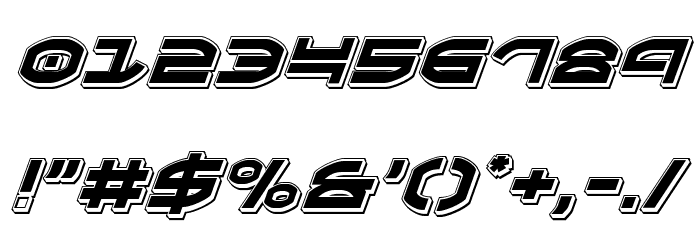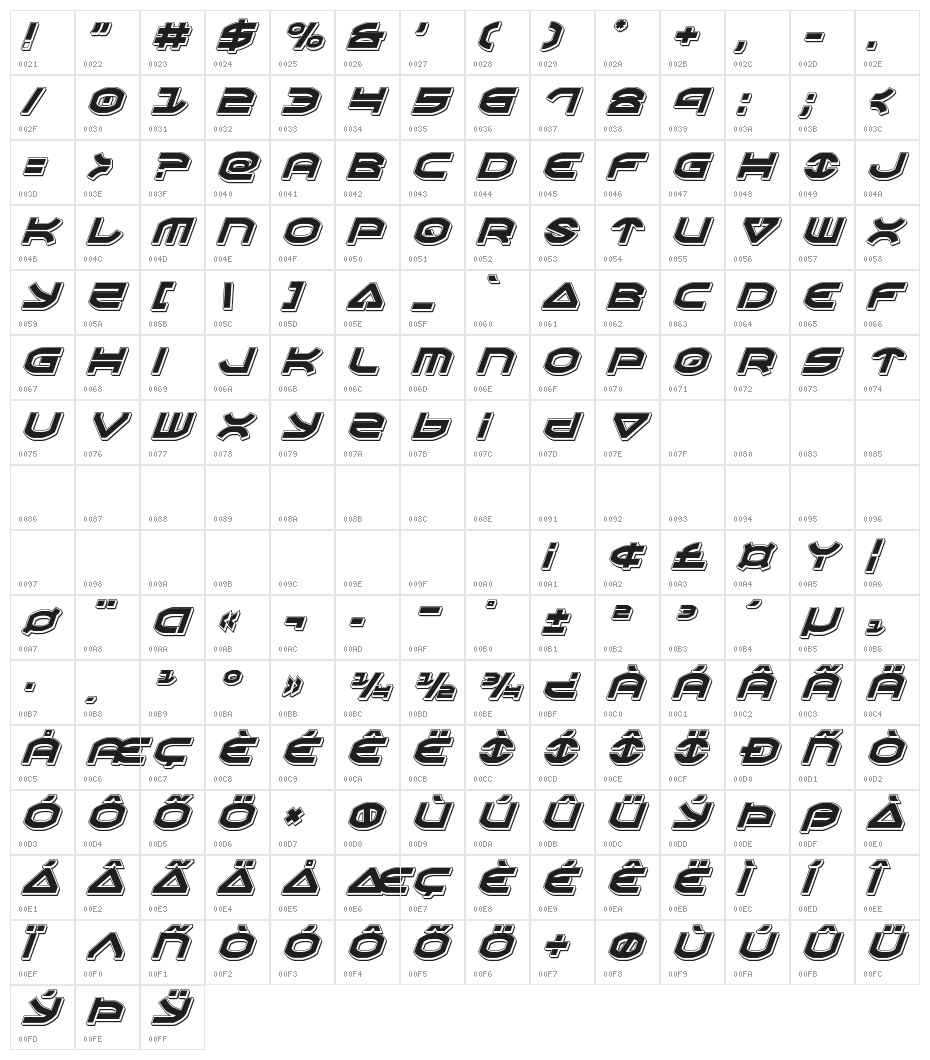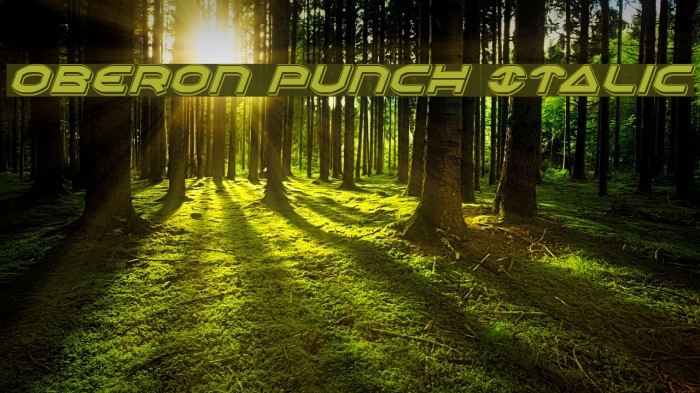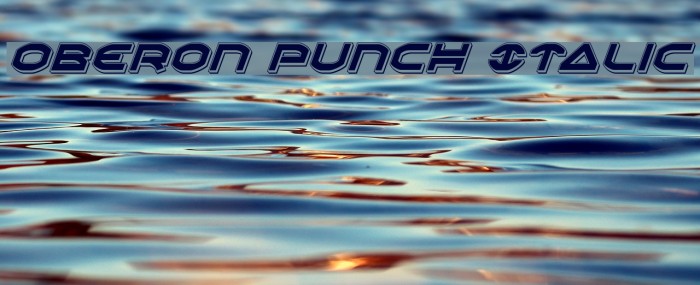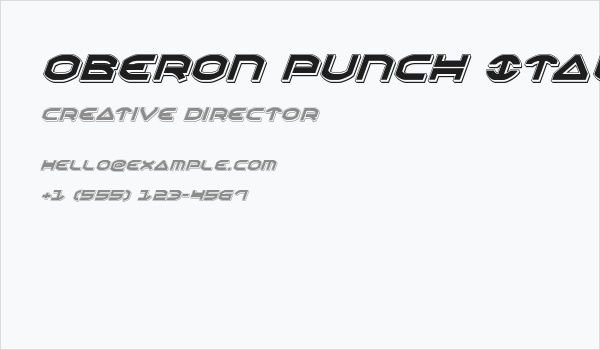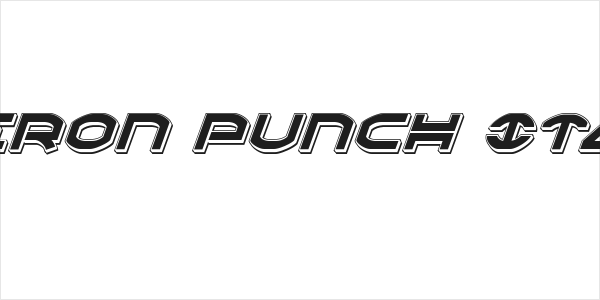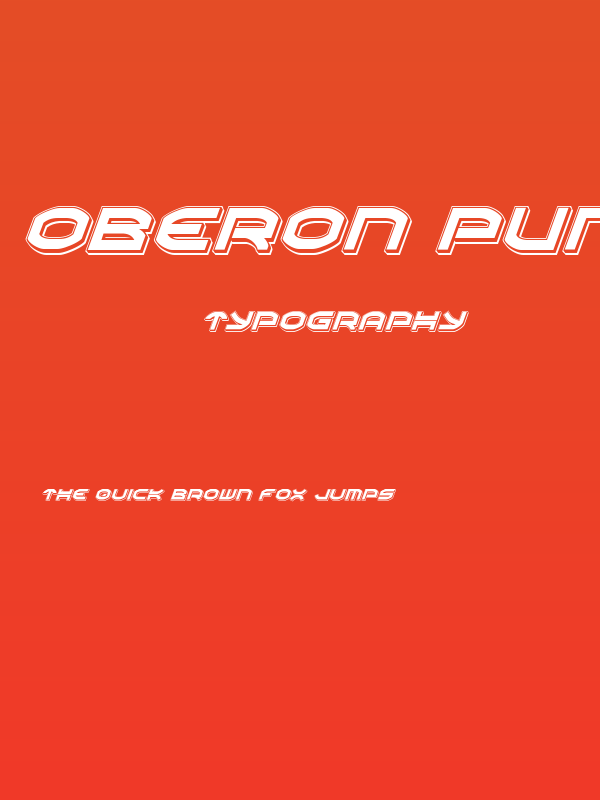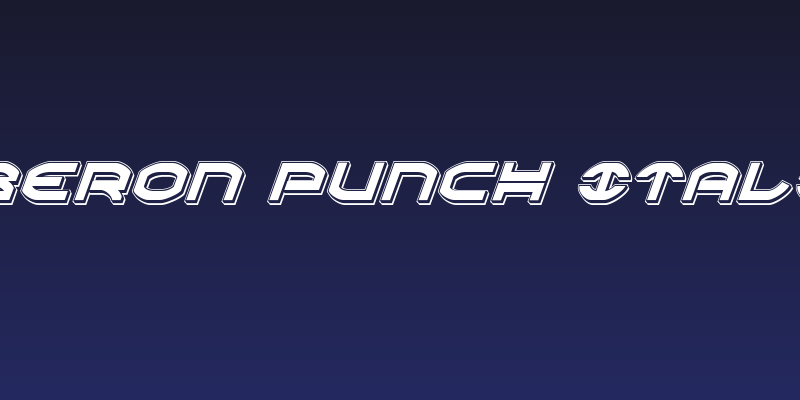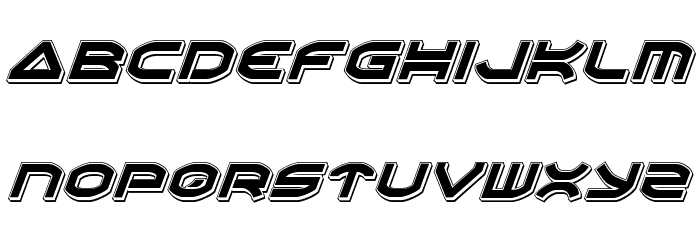
Oberon Punch Italic Font
Oberon Punch Italic Description
This font features a bold and dynamic style with a futuristic flair. The characters are outlined with a thick border, creating a striking contrast between the inner and outer edges. The italicized slant adds a sense of motion and energy, making it ideal for attention-grabbing designs. The uppercase and lowercase letters maintain a consistent geometric form, while the numbers and special characters follow the same bold aesthetic. This font is perfect for projects that require a modern and edgy look, such as tech-related branding, sports team logos, or sci-fi themed designs.
| Use Case | Logos, Headlines |
| Proposed Projects | Ideal for tech branding, sports logos, and sci-fi themed designs. |